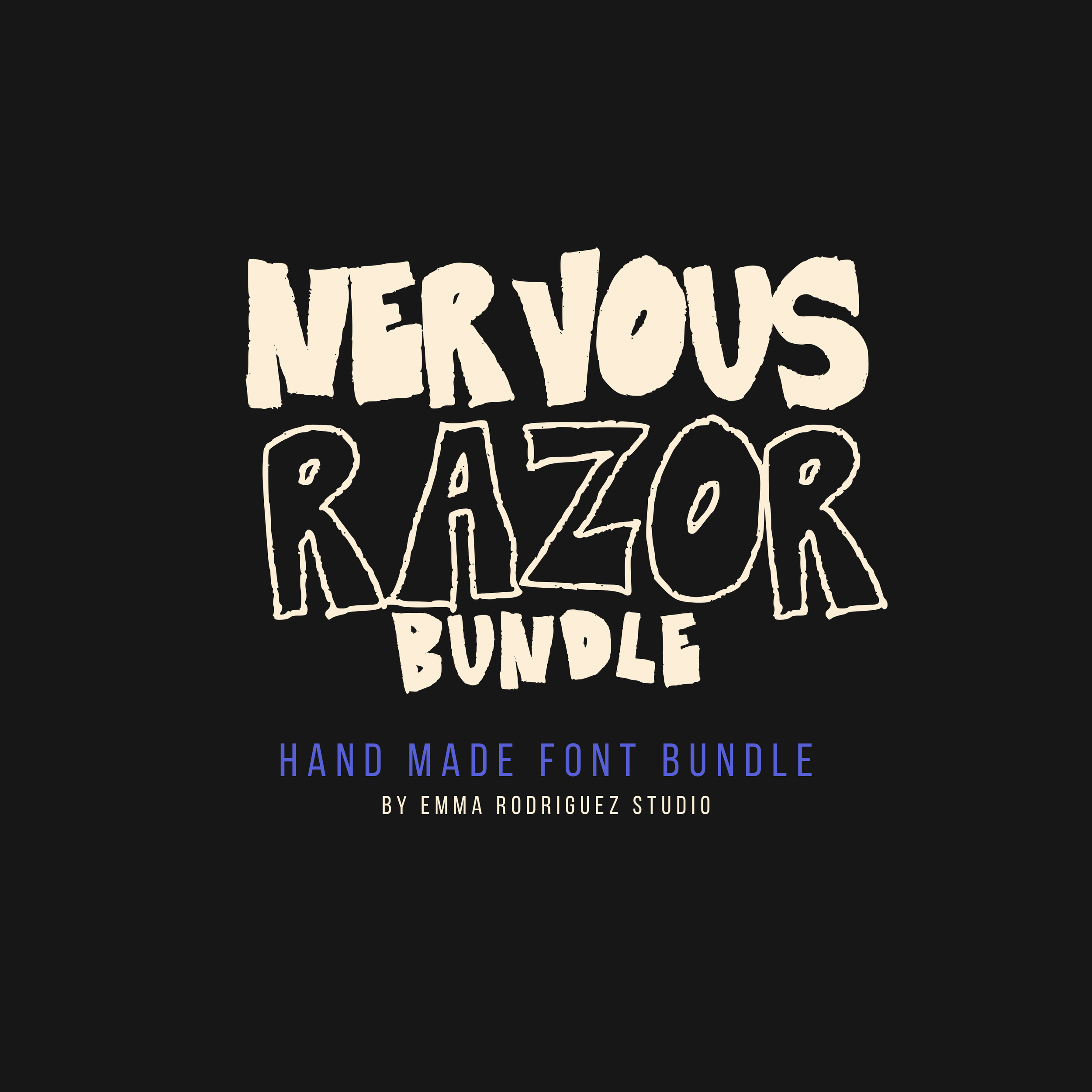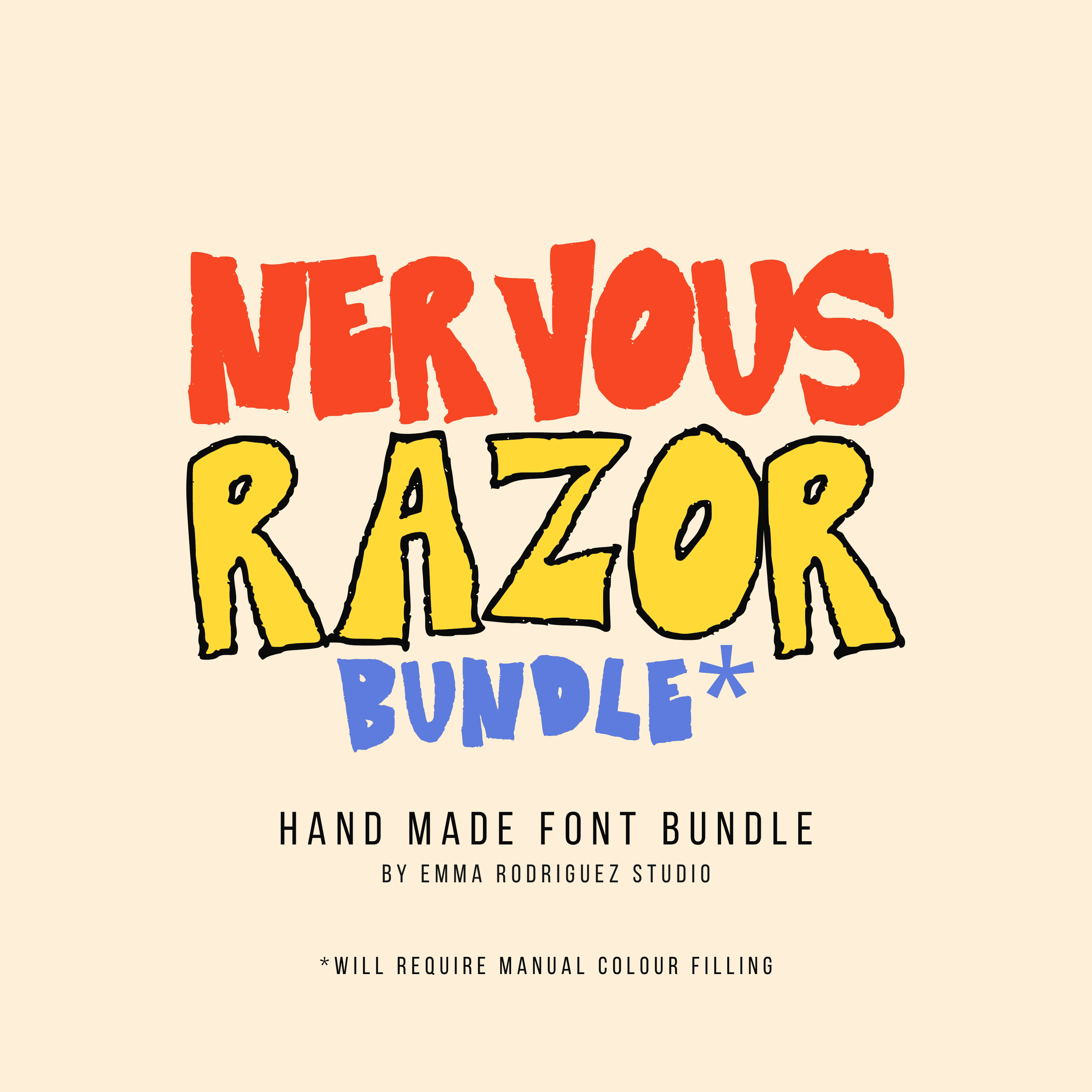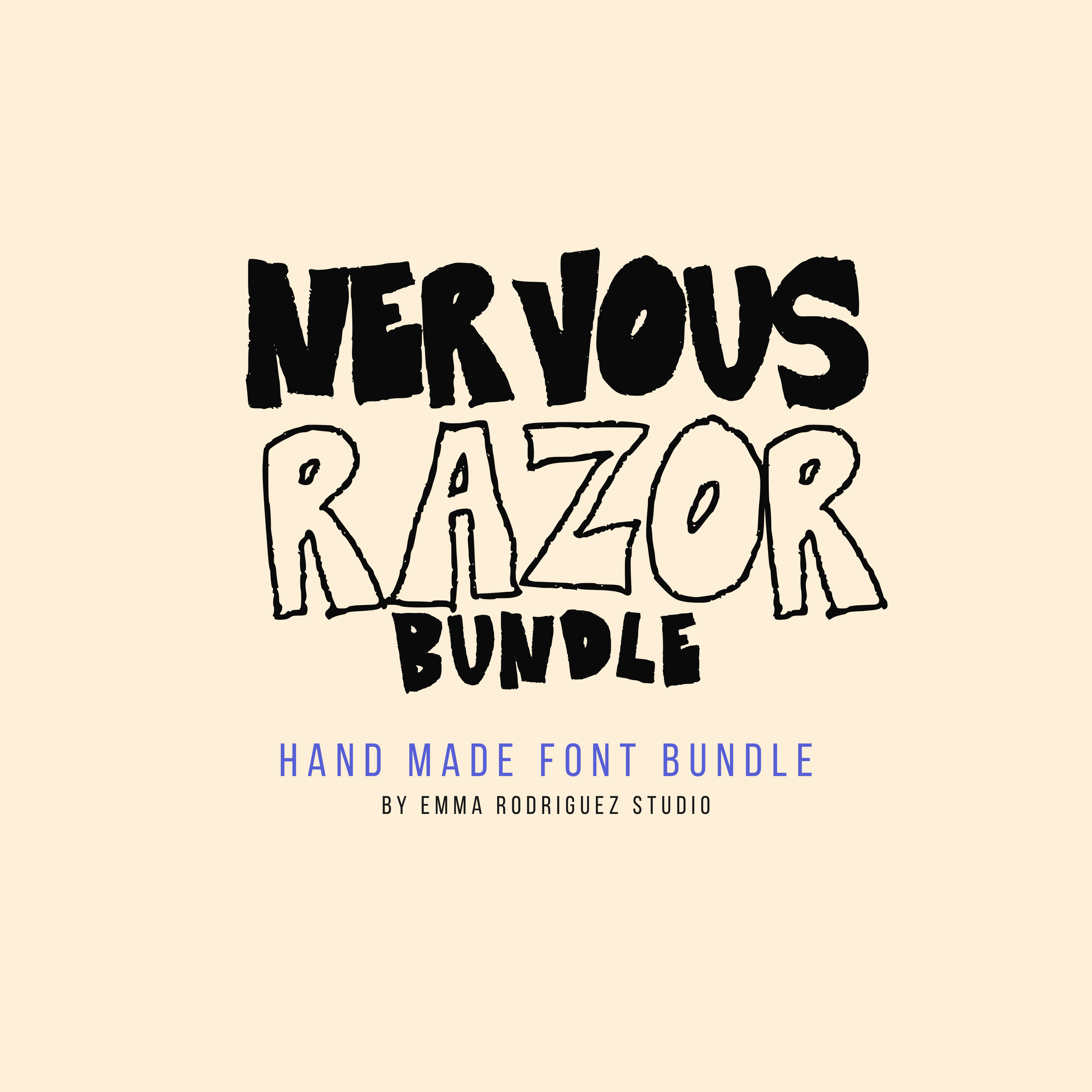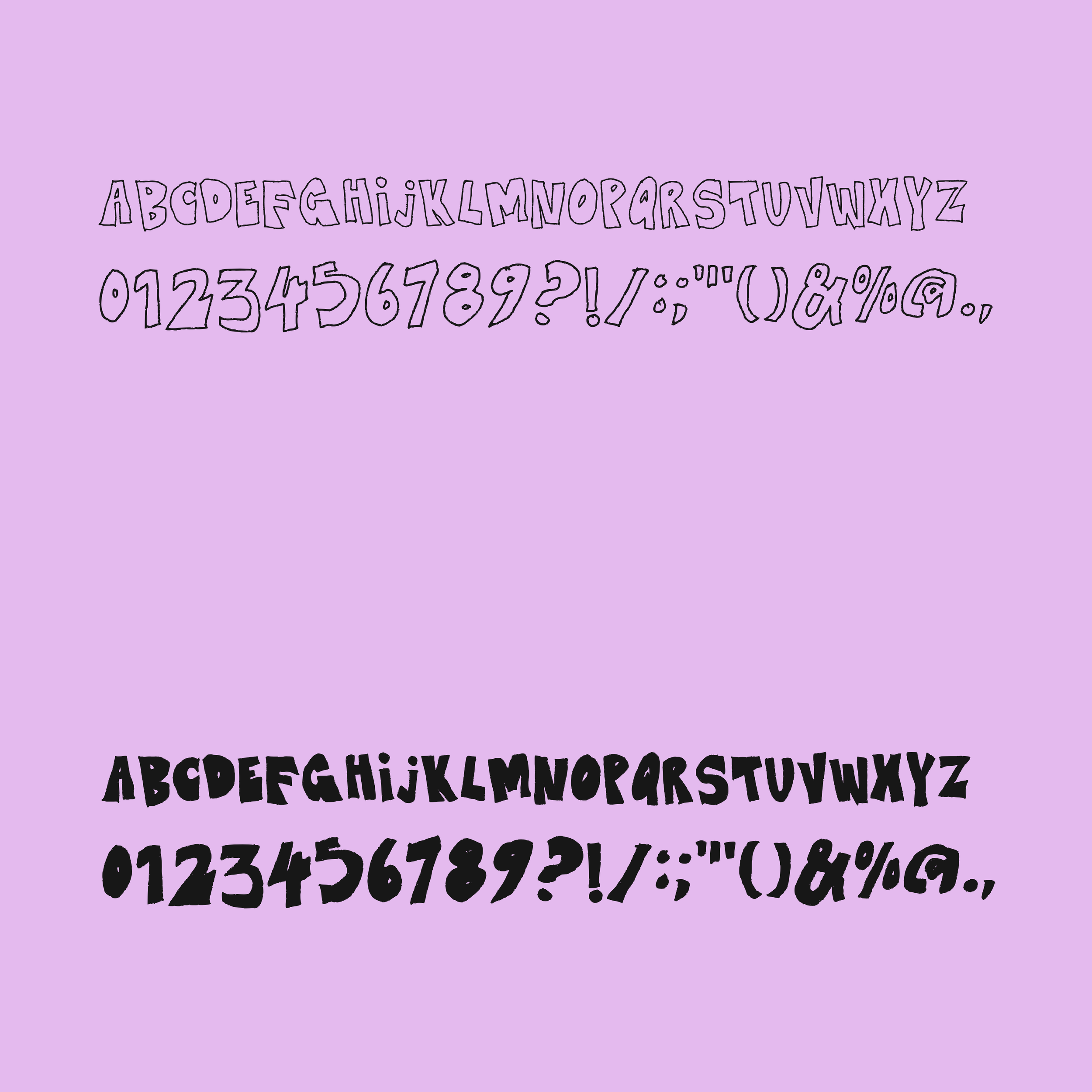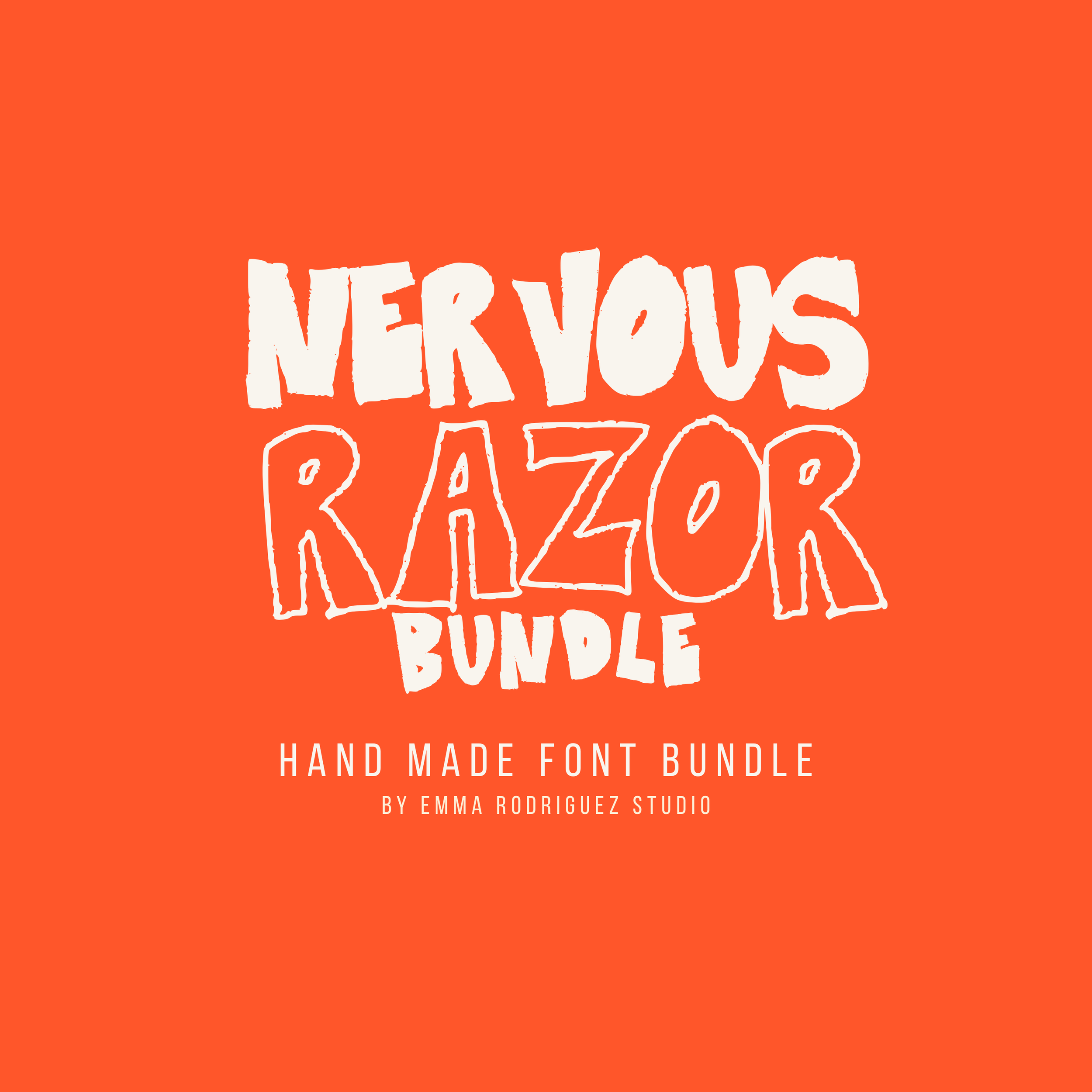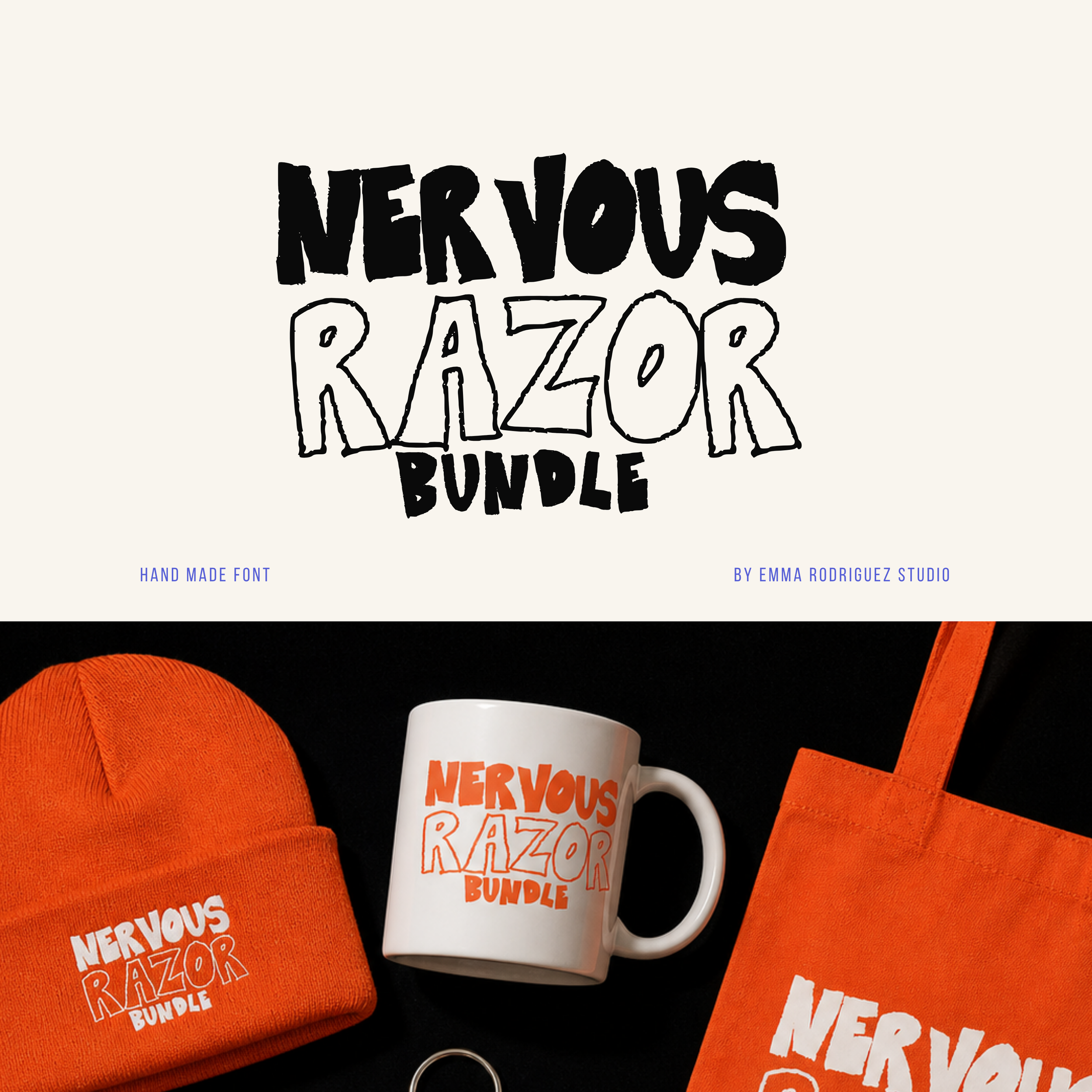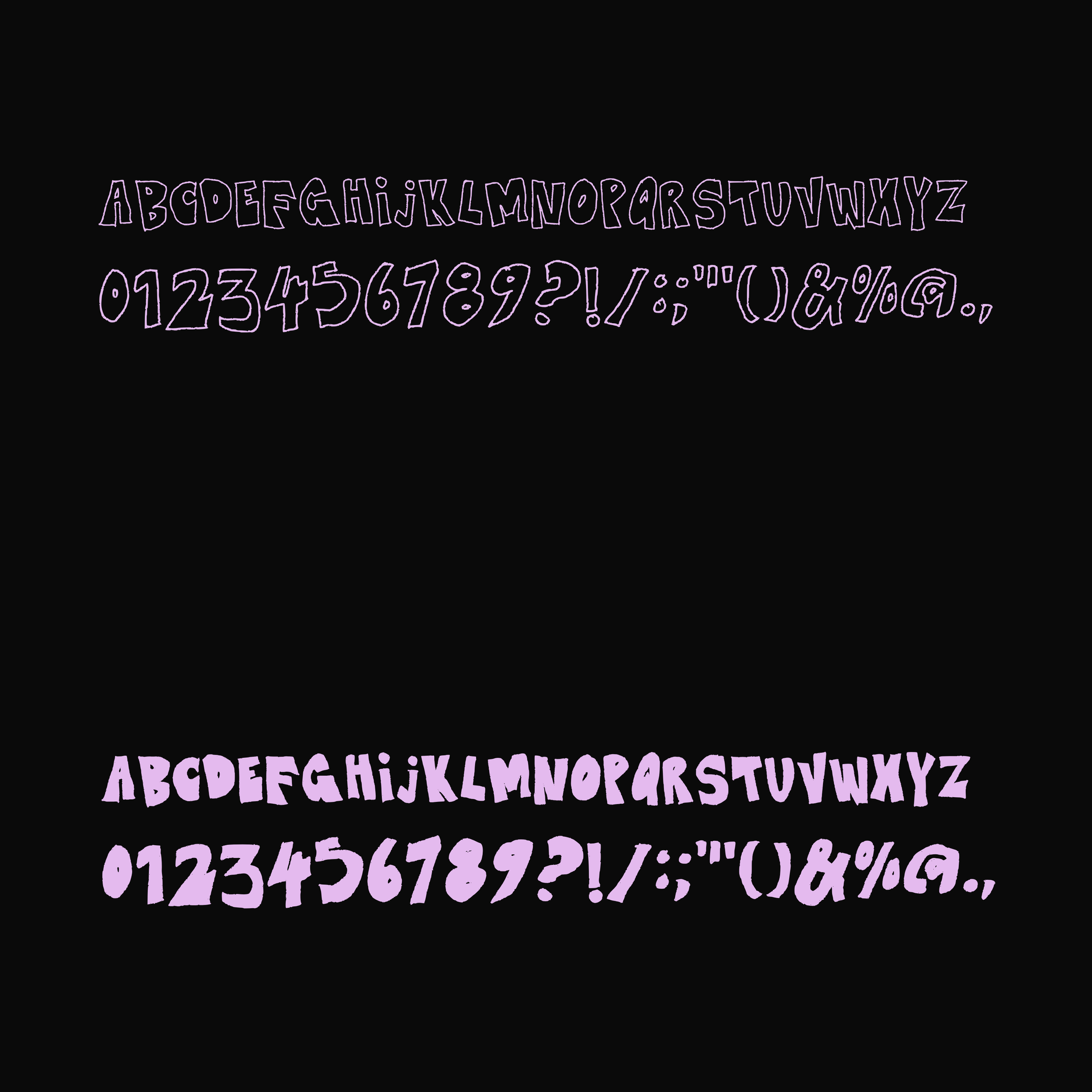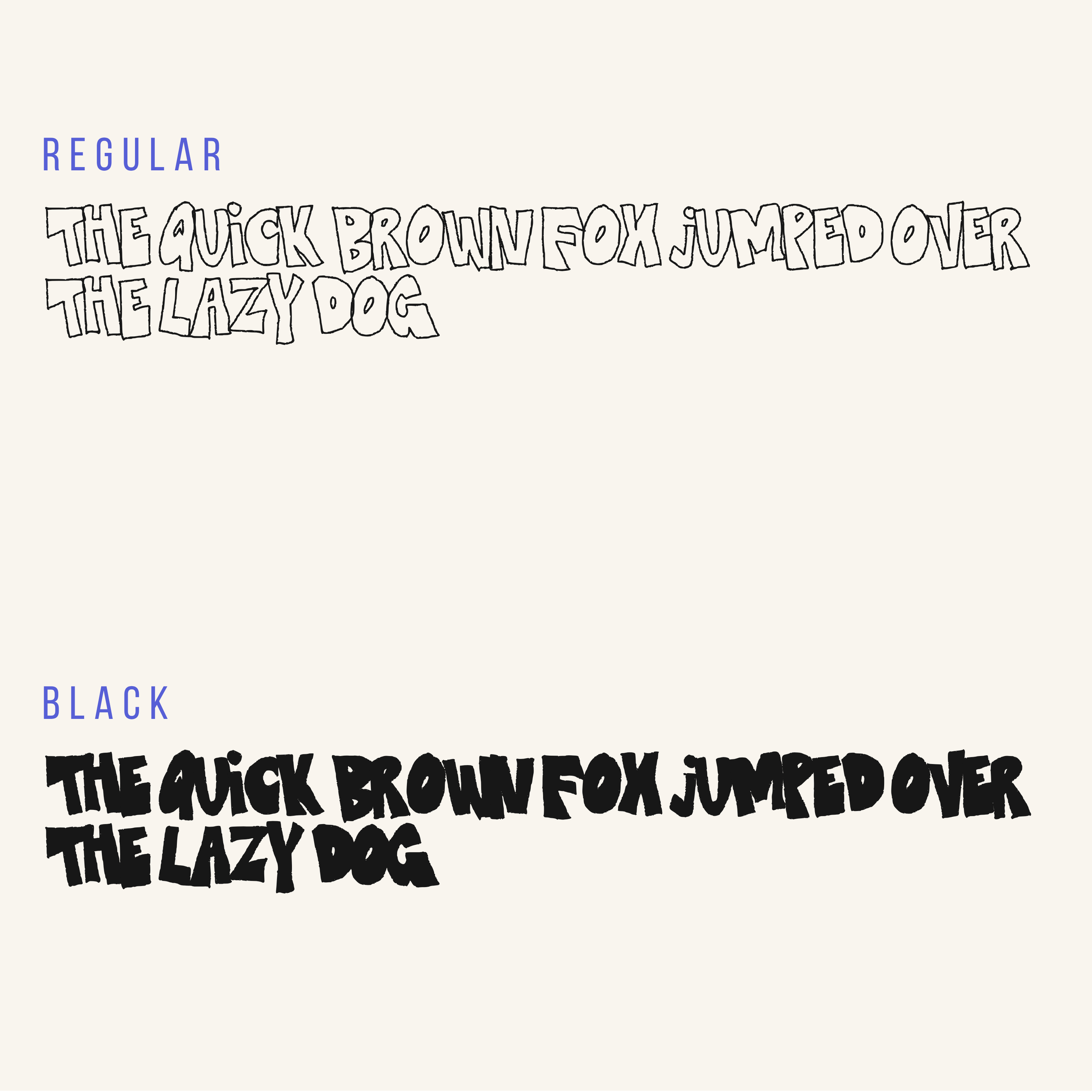
Nervous Razor Font Duo - Edgy Thick Type Pack
Meet Nervous Razor, a bundle of 2, a rough, hand drawn display font that leans into sharp edges, uneven lines, and slightly chaotic structure. It takes bold letterforms and breaks them down into something more raw, sketchy, and unpredictable.
Still readable. Just more jagged, more irregular, and full of tension.
This set includes two styles of the same font, giving you flexibility without overcomplicating your workflow. Use the outline and solid versions together for layered designs or separately depending on the look you want.
The letters are intentionally uneven, with inconsistent edges, irregular baselines, and slightly awkward spacing that creates a restless, energetic feel. Nothing is perfectly aligned on purpose. That imbalance is what gives it its edge.
This font is designed to add personality and attitude to your work, with expressive letterforms that stand out across branding, posters, packaging, and digital design. Ideal for designers, artists, and content creators looking for something more raw and less polished than standard typefaces.
• Uppercase letters
• Numbers and basic punctuation
Use it for:
• Edgy branding
• Music artwork
• Bold posters
• Zines
• Statement quotes
• Album covers
• Streetwear graphics
• Experimental design
Intentional quirks are part of the design. Irregular baselines, varied spacing, and uneven kerning are built in and form part of the overall style across fonts by Emma Rodriguez Studio. These details are not faults but a core feature of the font’s personality.